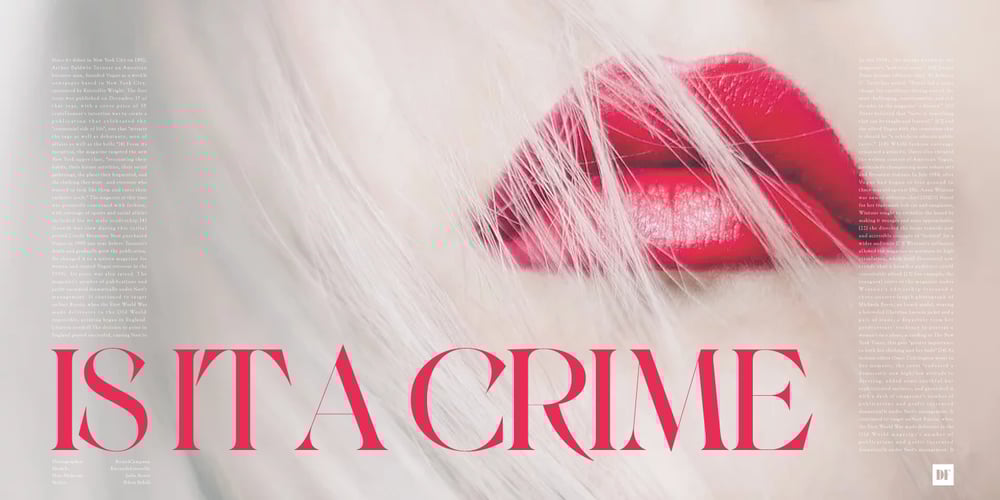
Rache Rache Font Family was designed by Shin Oka and published by Daylight Fonts. Rache Rache contains 1 styles and family package options. This is a modern font with a new interpretation of the classic font.It has sharp serifs, delicate hairlines, and beautiful curves that will make your typographic work look vinegar-lidded, stylish, and sexy.